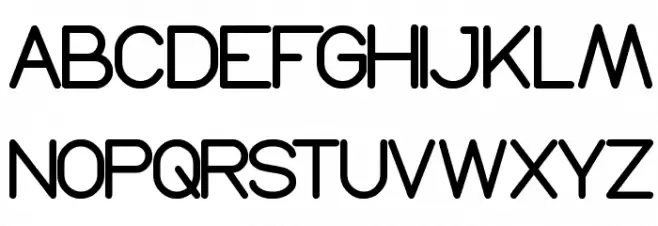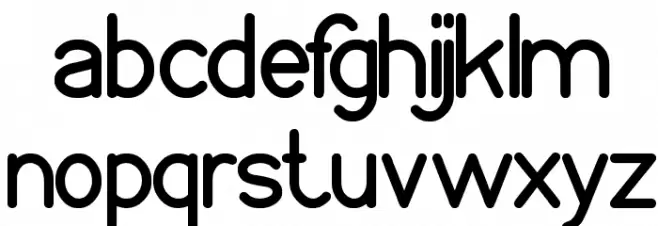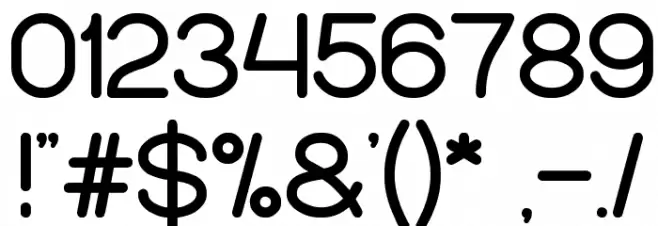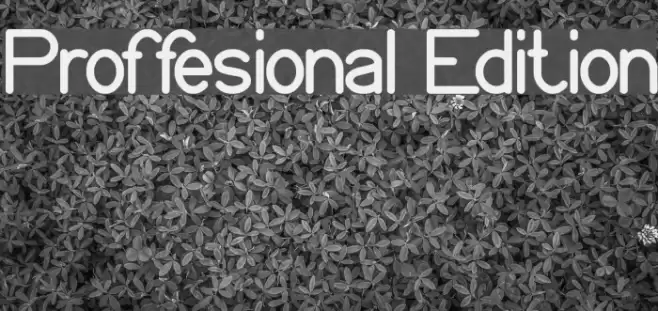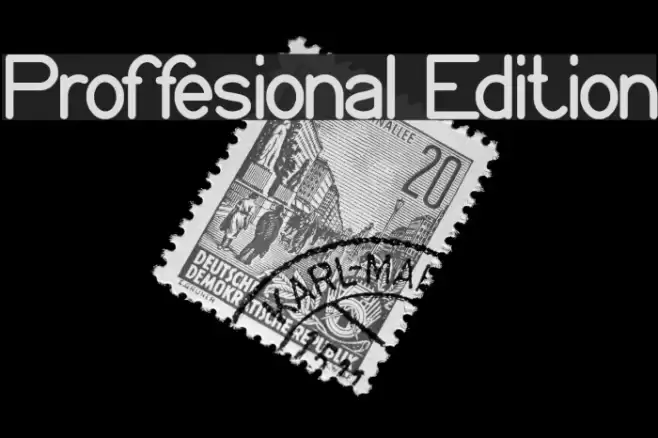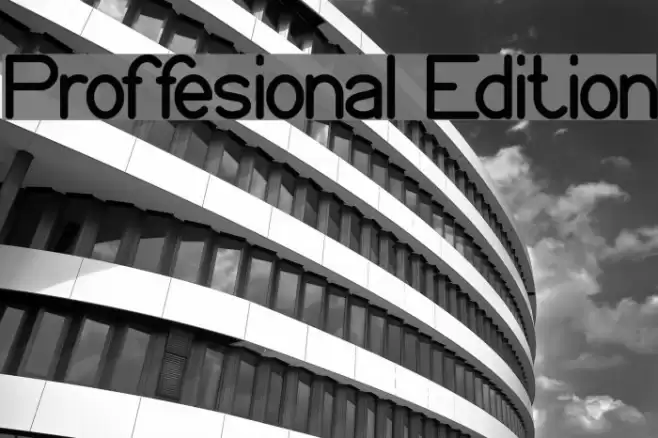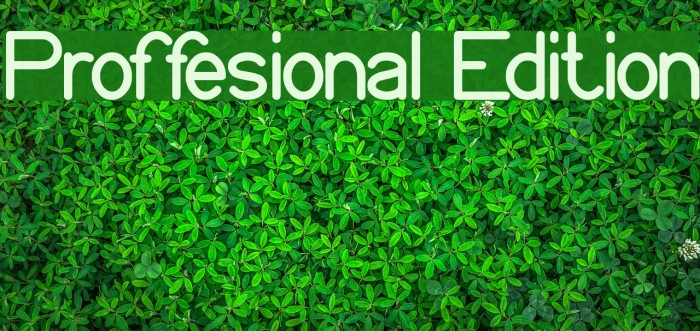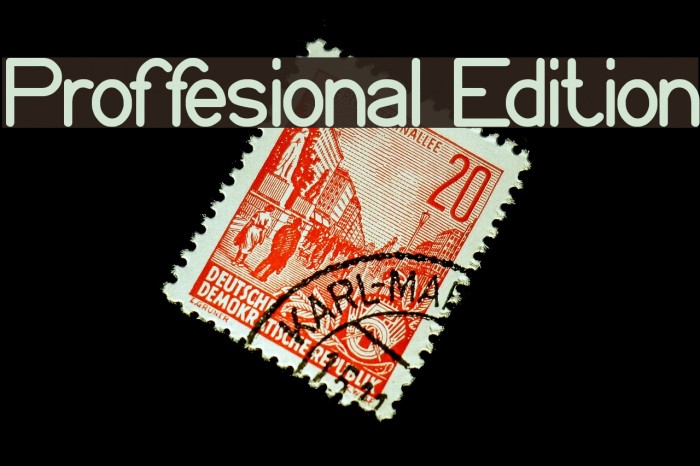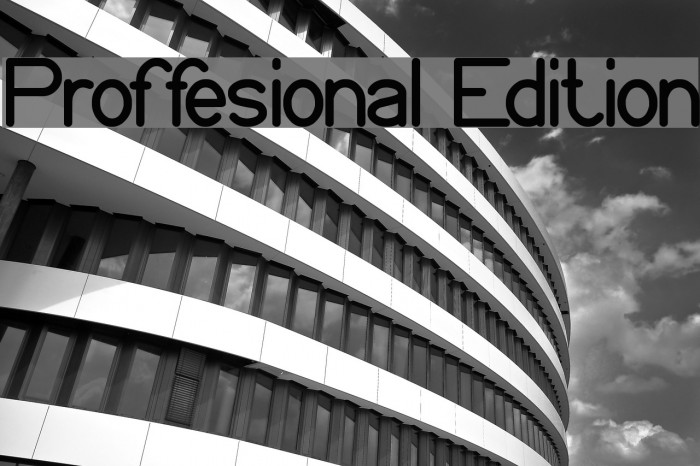
Proffesional Edition
This font features a clean and modern sans-serif design with rounded edges, giving it a friendly and approachable appearance. The characters are evenly spaced, providing a balanced and harmonious look. The uppercase letters are bold and prominent, while the lowercase letters maintain a consistent flow with slightly rounded terminals. The numerals are clear and legible, making them suitable for various applications. Special characters are included, maintaining the same rounded style, which adds to the font's versatility. Overall, this font is ideal for projects that require a modern yet approachable aesthetic.
A modern sans-serif font with rounded edges and balanced spacing.
- Proposed Projects: Ideal for branding, advertising, web design, and user interfaces.